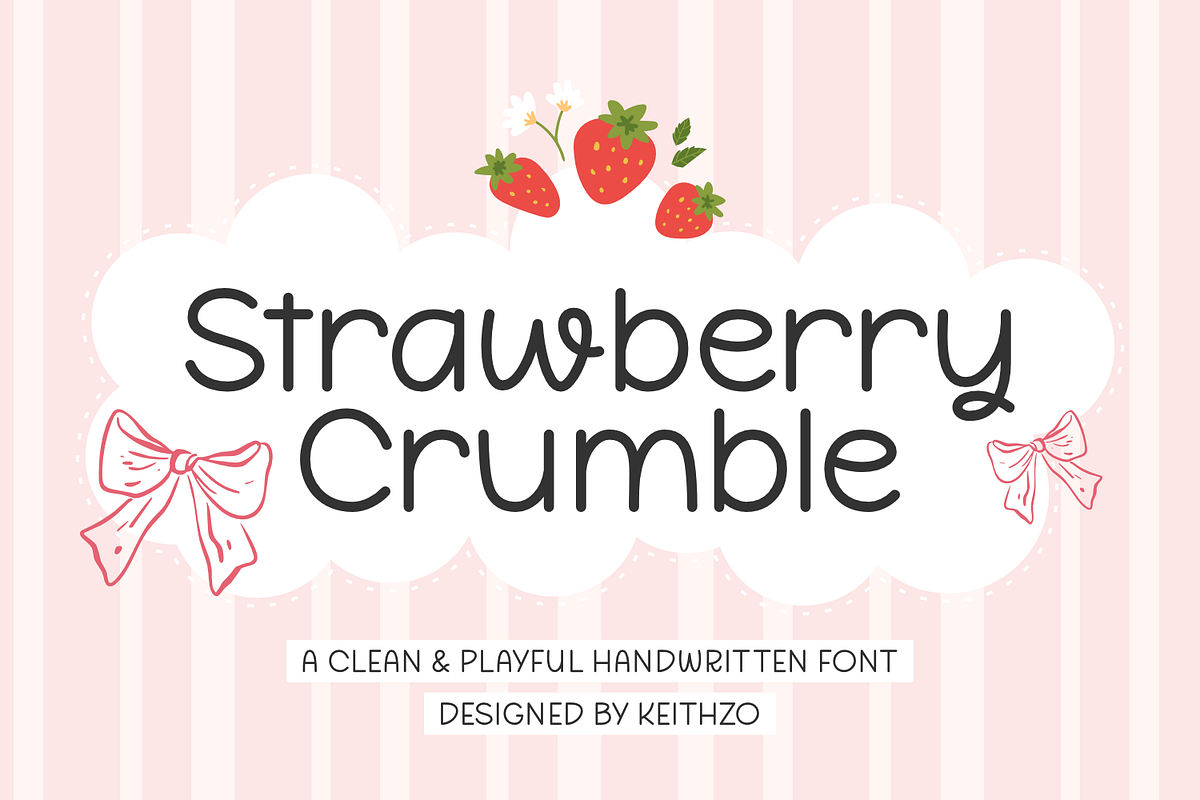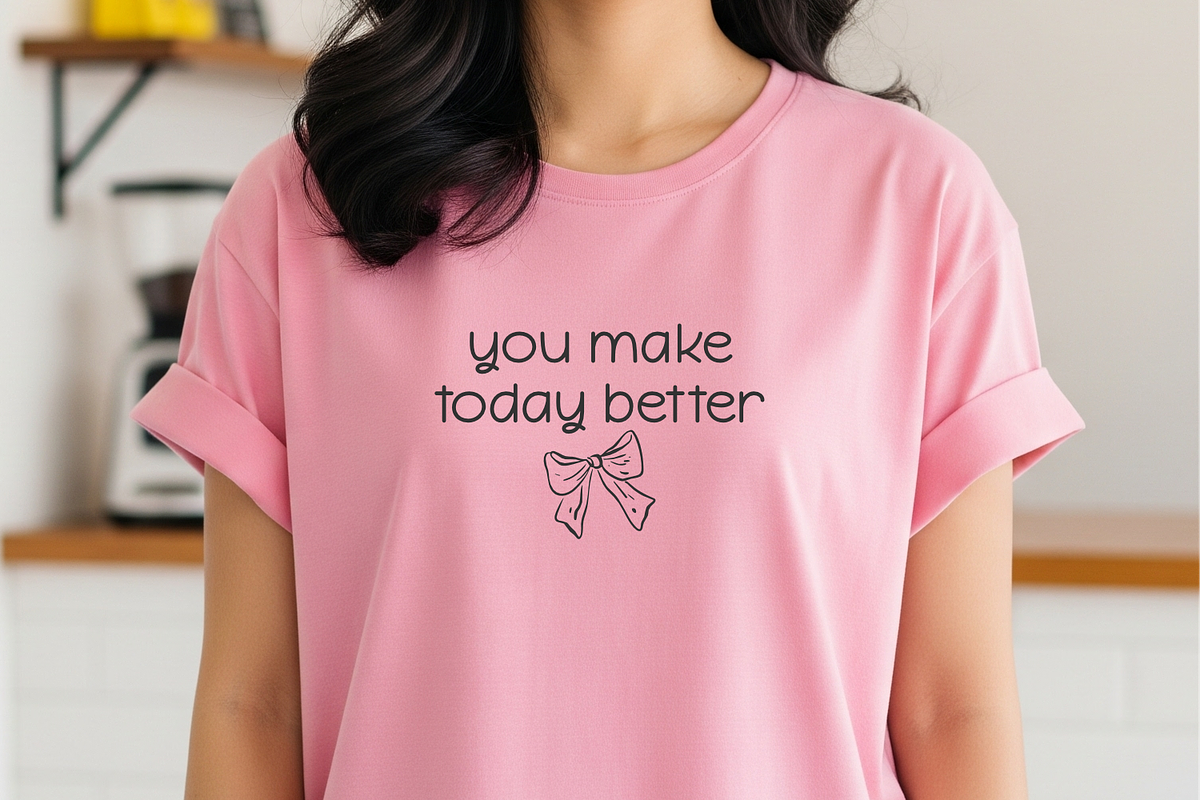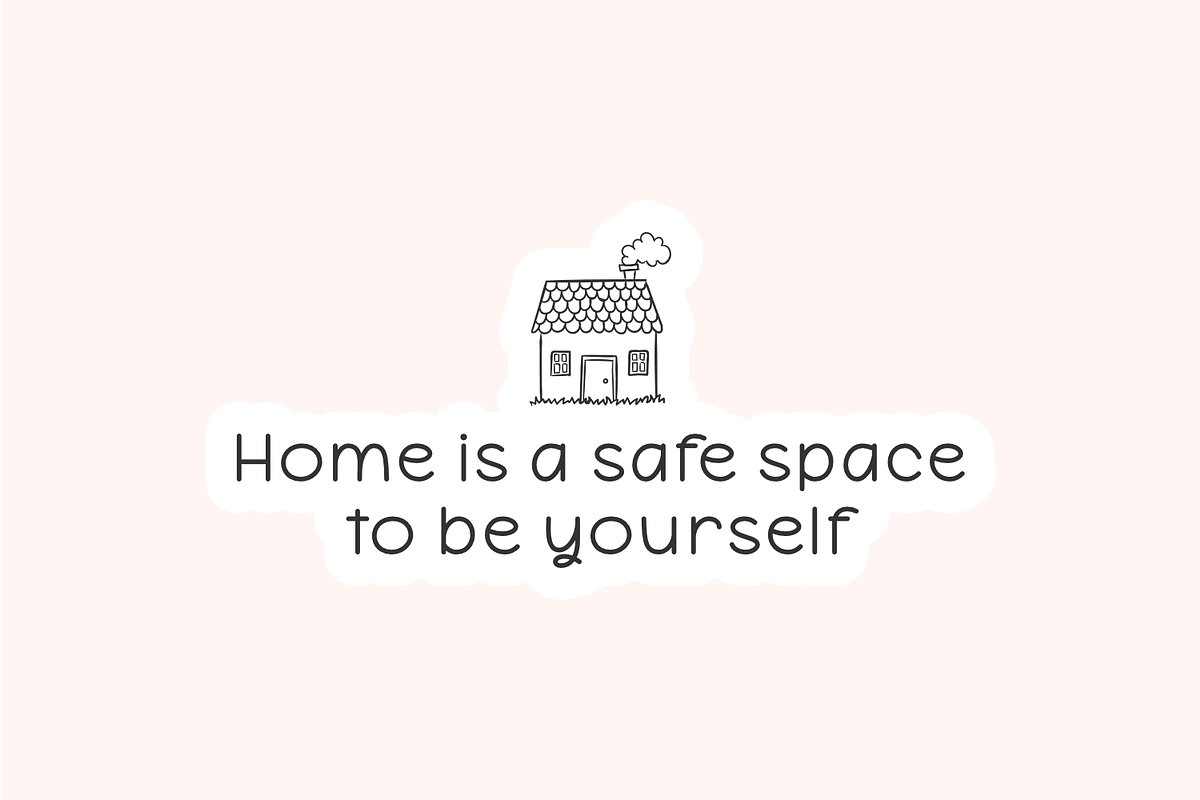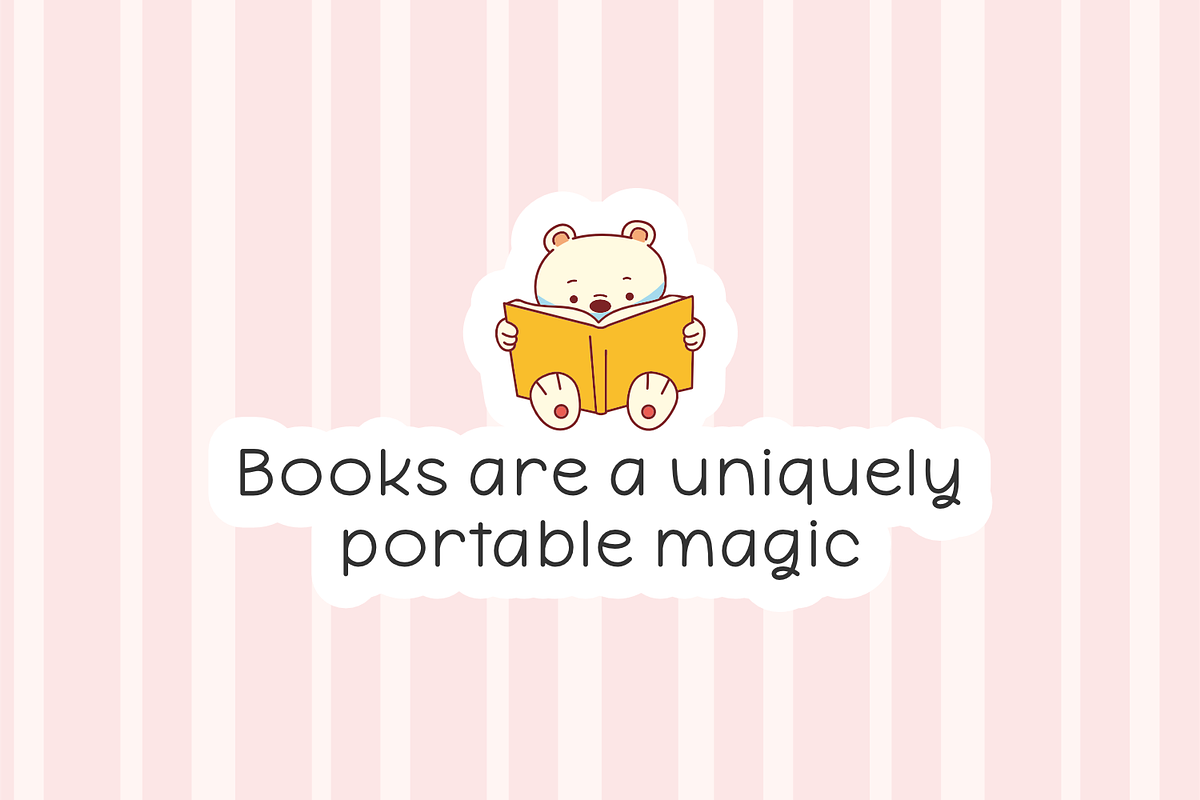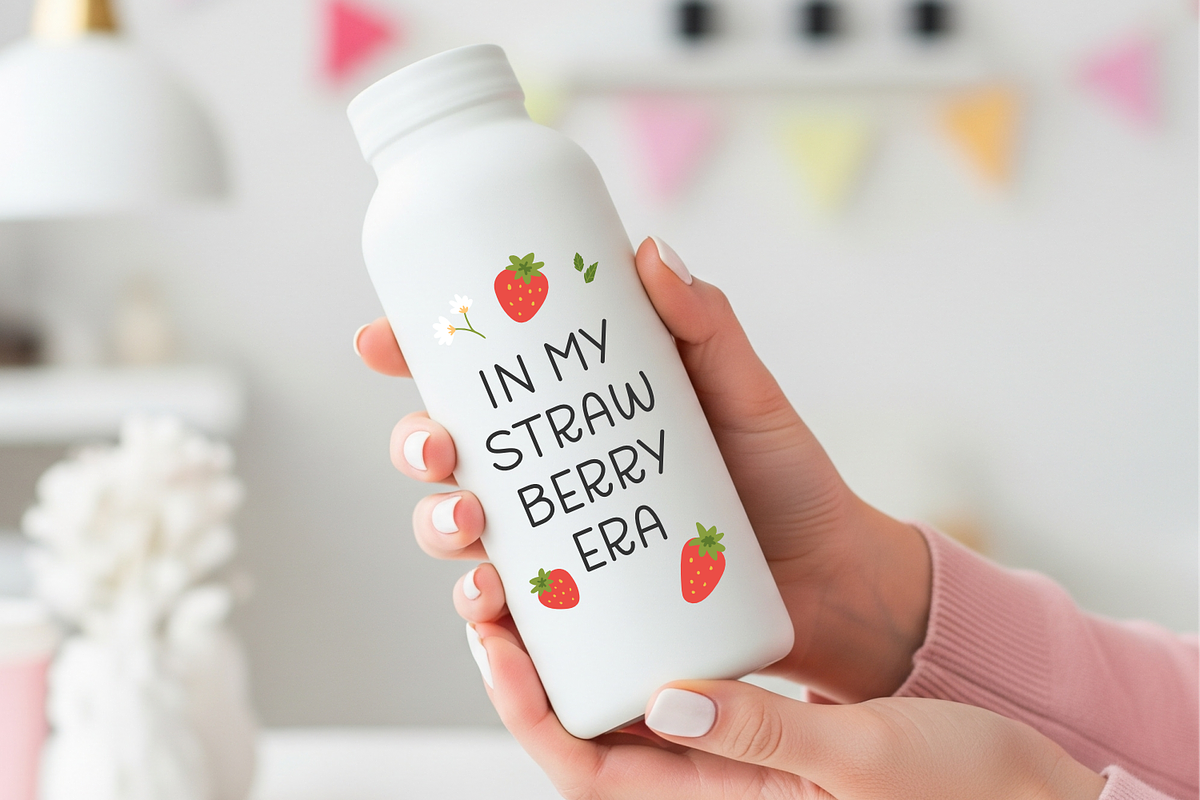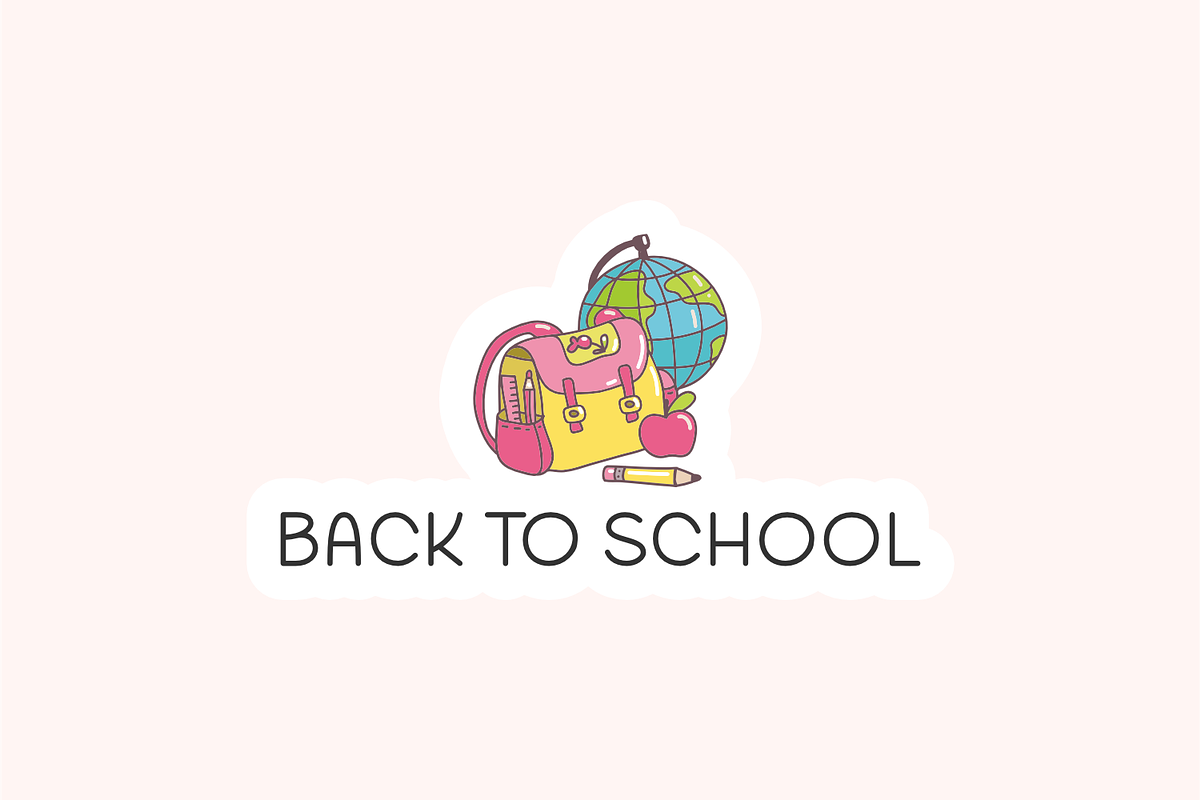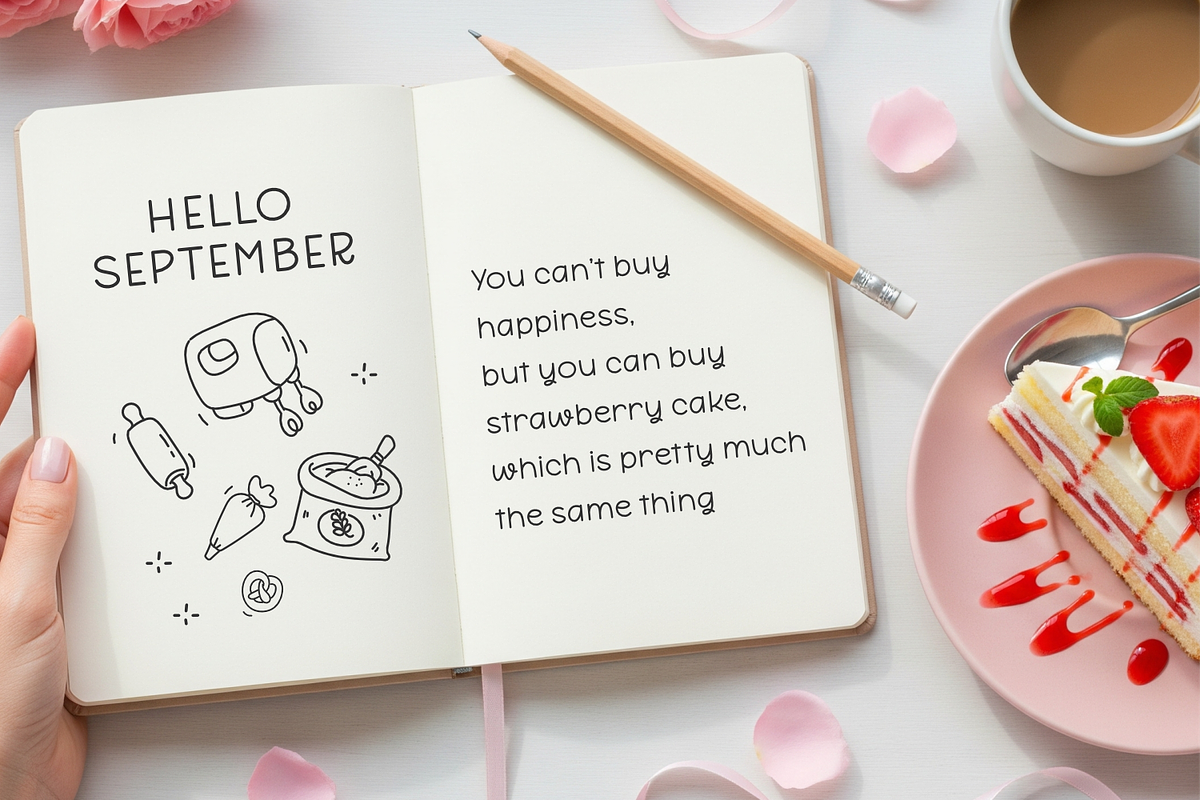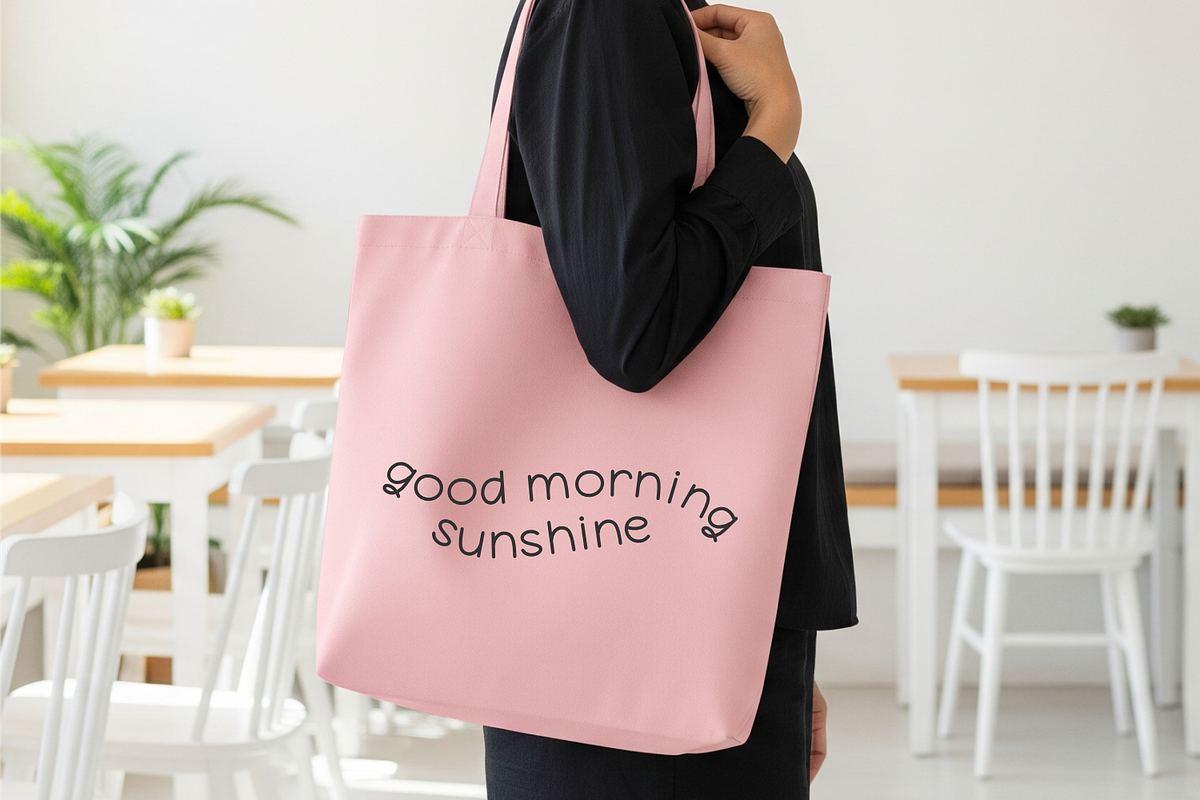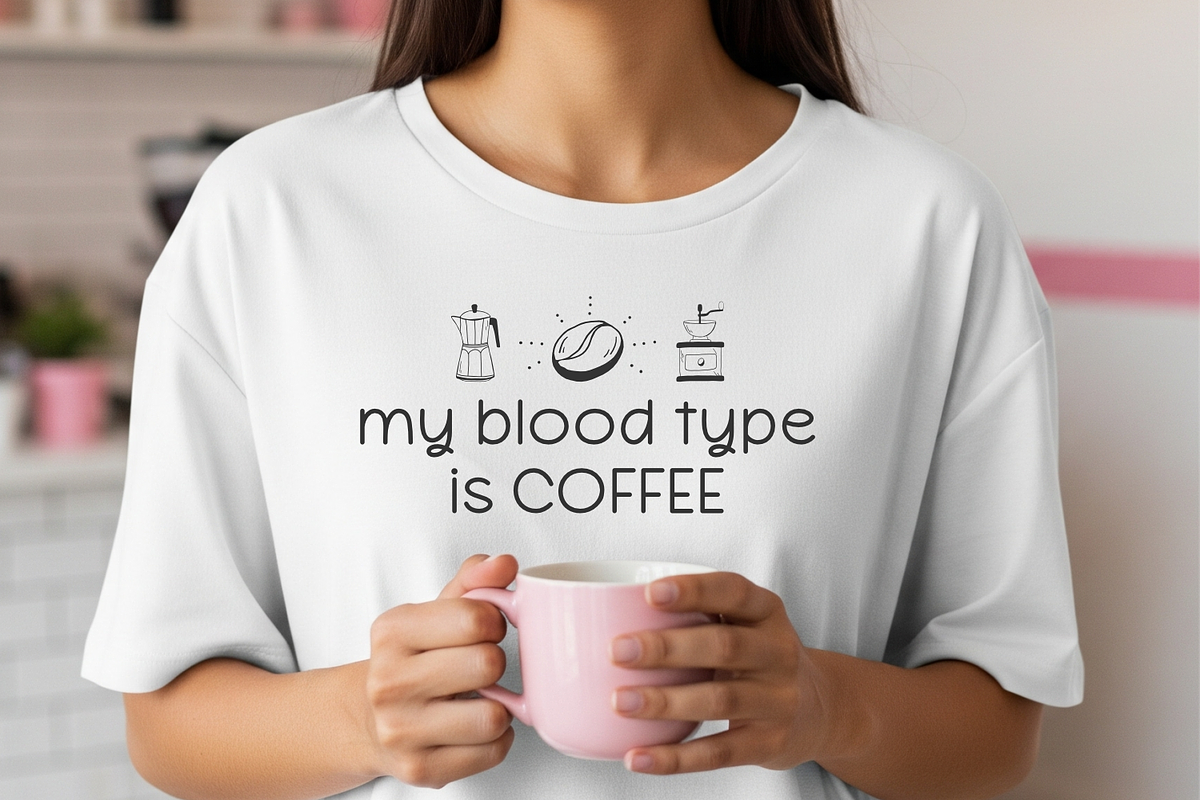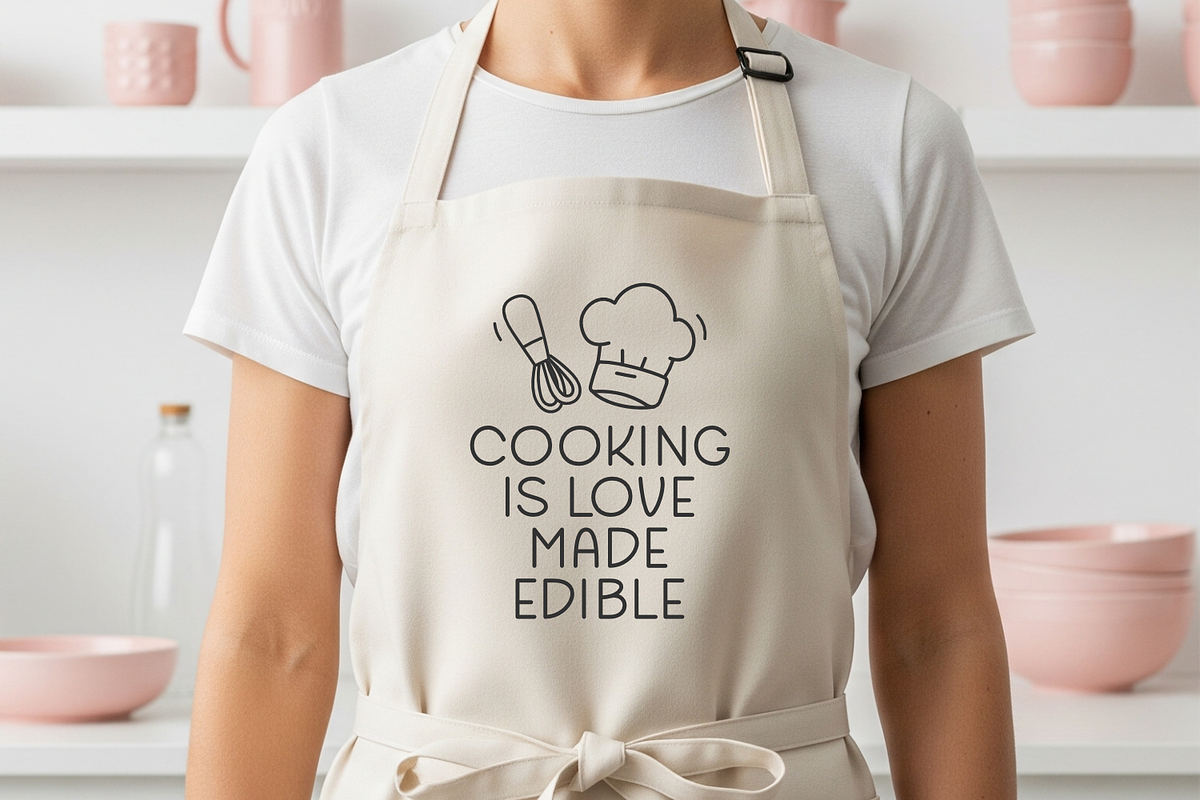
Strawberry Crumble - HandwrittenFont
Welcome to the playful world of the Strawberry Crumble font – a heartwarming handwritten design that oozes charm and joy. With its neatly crafted lines, this font embodies a sense of fun and cheerfulness, making every word bask in a sunny aura. Simplistic yet delightful, Strawberry Crumble effortlessly fits into a multitude of mediums. From jotting down thoughts in personal diaries, engaging blog posts to interactive social media content, Strawberry Crumble adds a splash of cuteness everywhere. Looking to print irresistible stickers, heartfelt birthday cards, whimsical design packaging or a distinctive logo for children’s brands? Look no further! Strawberry Crumble brings it all to life. It’s perfect for adding a fun twist to school posters or for turning a simple quote into a compelling piece of art. Paired well with cricut and sublime machines, Strawberry Crumble’s smooth strokes are excellent for any craft, serving as your go-to font for all things creative.